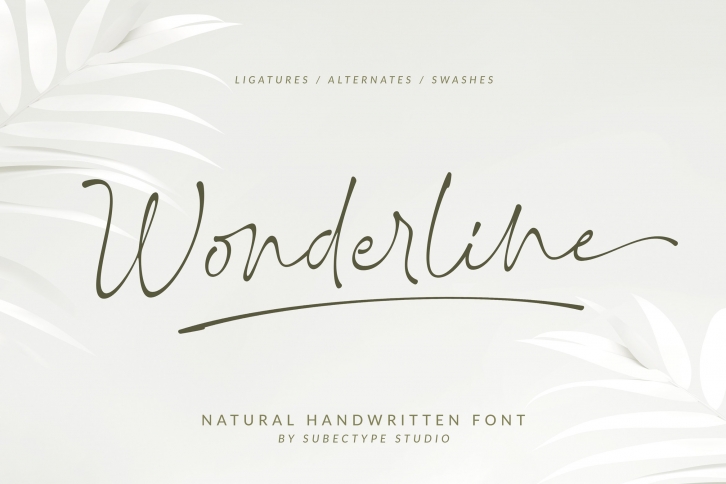
Wonderline is a luxury modern calligraphy font with with a touch of handwriting style. this font is perfect for creating signature logos and watermarks for photography studio or wedding invitation.
Wonderline includes full set of beautifull hand lettered uppercase and lowercase letters, numerals, a large range of punctuation and 58 beautiful ligatures. All lowercase letters include beginning and ending swashes, giving realistic hand-lettered style.